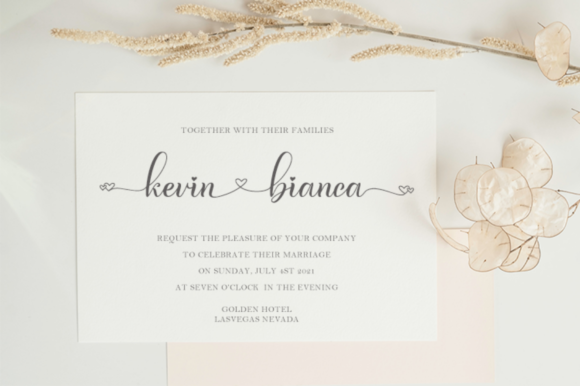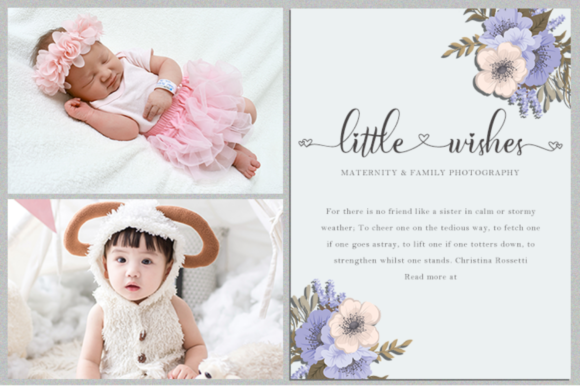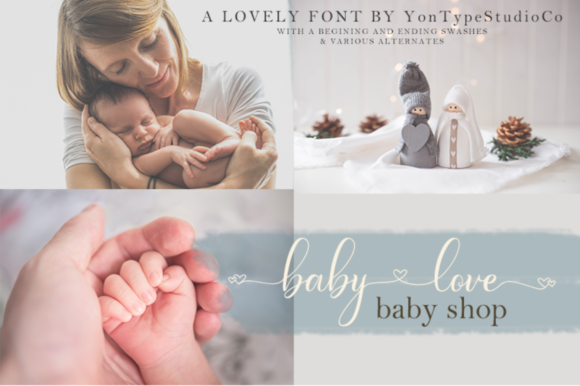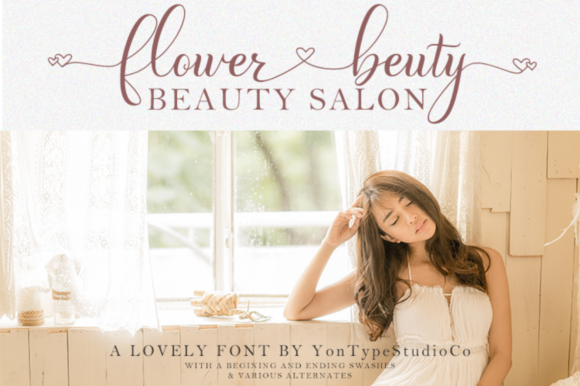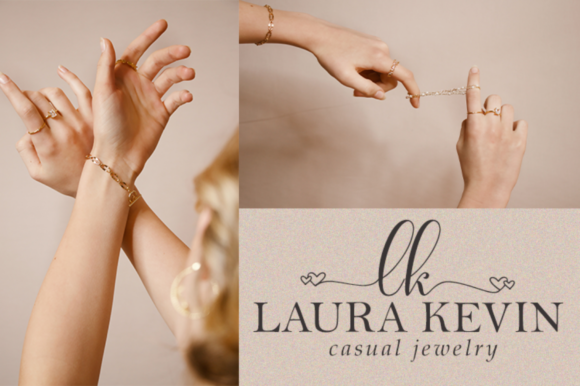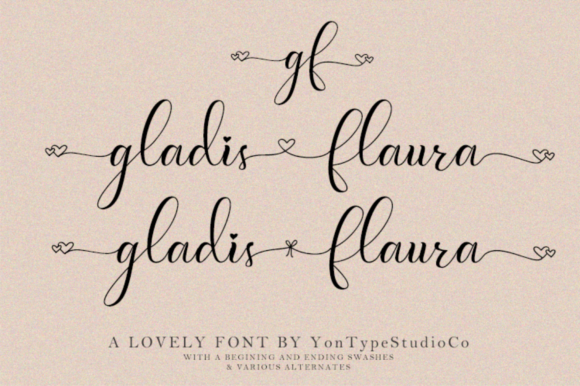
The Quest for the Perfect Script Font: Discovering Fabella Flower
I’ll never forget the time I was working on a wedding invitation project, and my client asked for a font that was ” elegant, romantic, and totally unique.” I scoured the internet, tried out dozens of fonts, but nothing seemed quite right. That was until I stumbled upon Fabella Flower. ✨ This gorgeous script font has been a game-changer for my design projects, and I’m excited to share it with you today!
An Honest Review of Fabella Flower
- ✨ Elegant and refined, perfect for romantic projects like weddings and anniversaries
- 💕 Beautifully crafted, with intricate details and flourishes
- 🎨 Highly versatile, works well with a variety of design styles and color schemes
While Fabella Flower is an amazing font, there are a few things to keep in mind: 🤔
- ⚠️ Some of the more intricate details may get lost at very small font sizes
- ⚠️ May not be the best choice for body text, due to its script nature
- Experiment with the font’s OpenType features, such as glyphs and stylistic alternates, to add some extra flair to your design
The Story Behind Fabella Flower
Fabella Flower was designed by a talented type designer who wanted to create a font that captured the essence of romance and elegance. Inspired by traditional calligraphy and hand-lettering, Fabella Flower is a beautiful, refined script font that’s perfect for any project that needs a touch of sophistication and whimsy.
| Font Name | Fabella Flower Font |
| Author | YonTypeStudio.Co |
A: Fabella Flower is a beautiful script font that’s perfect for romantic projects like weddings, anniversaries, and love letters.